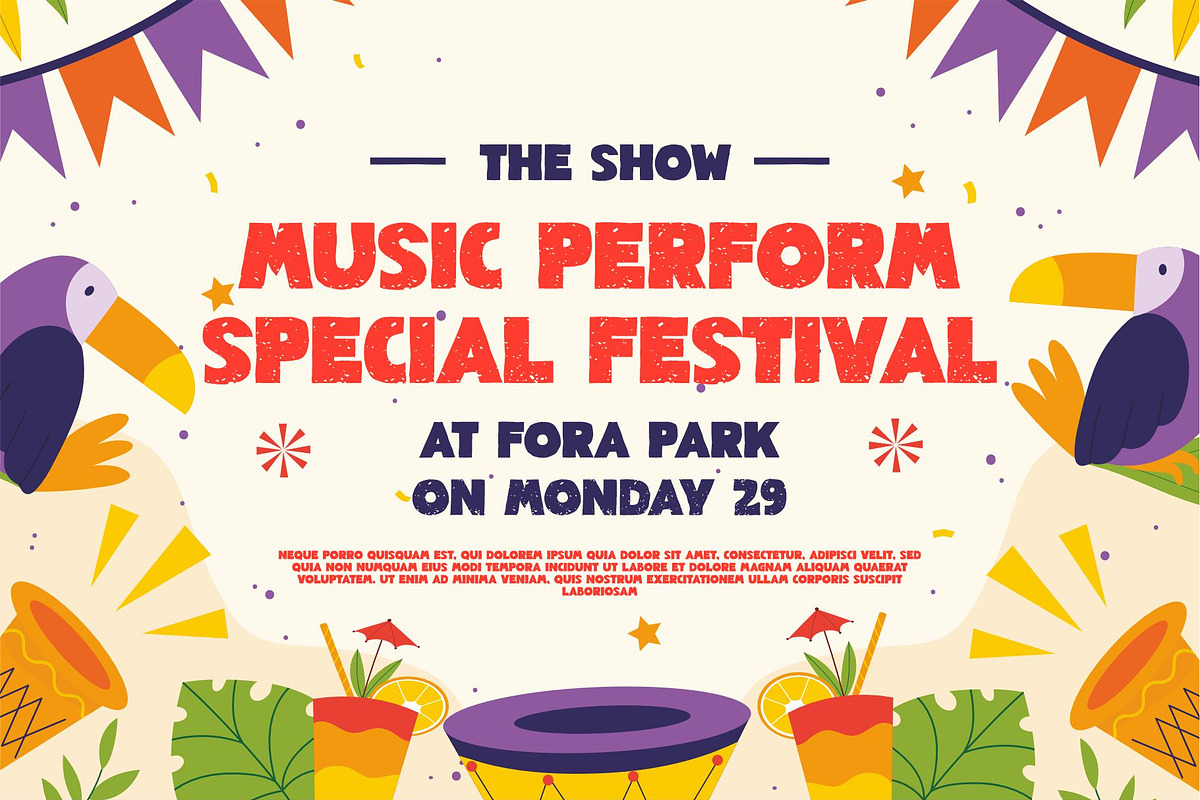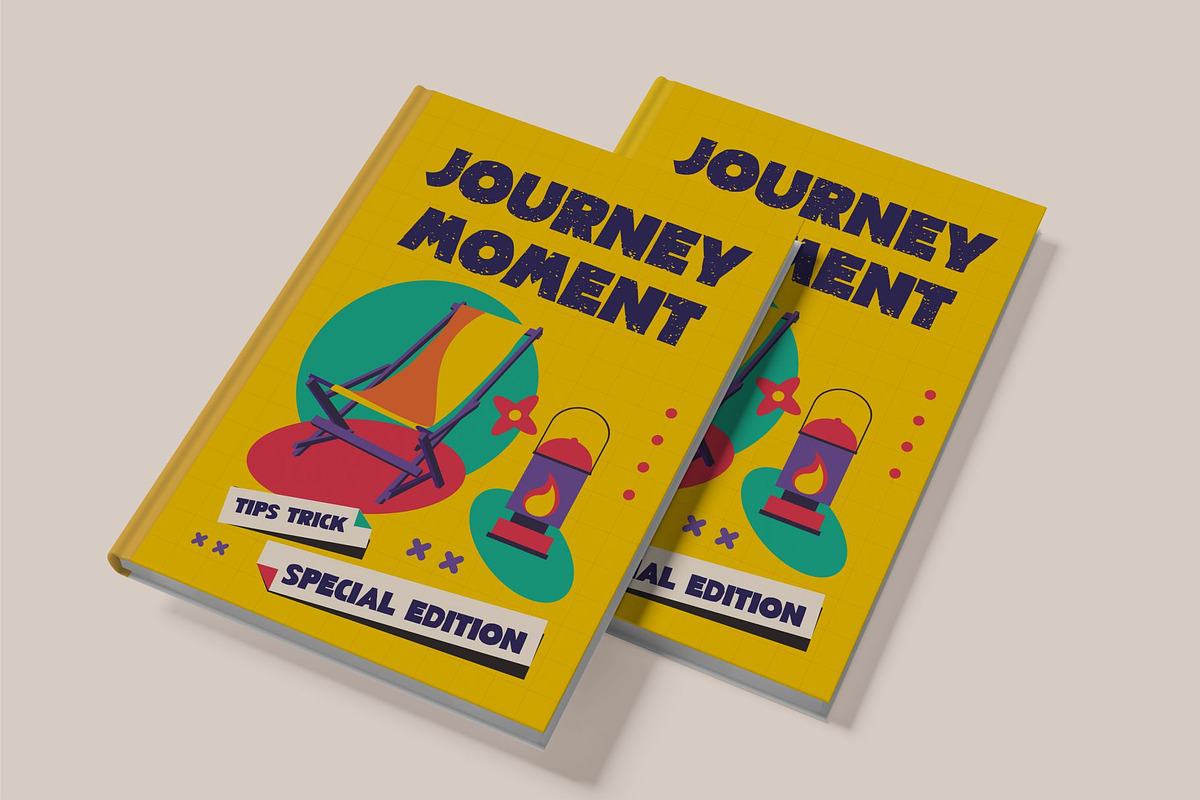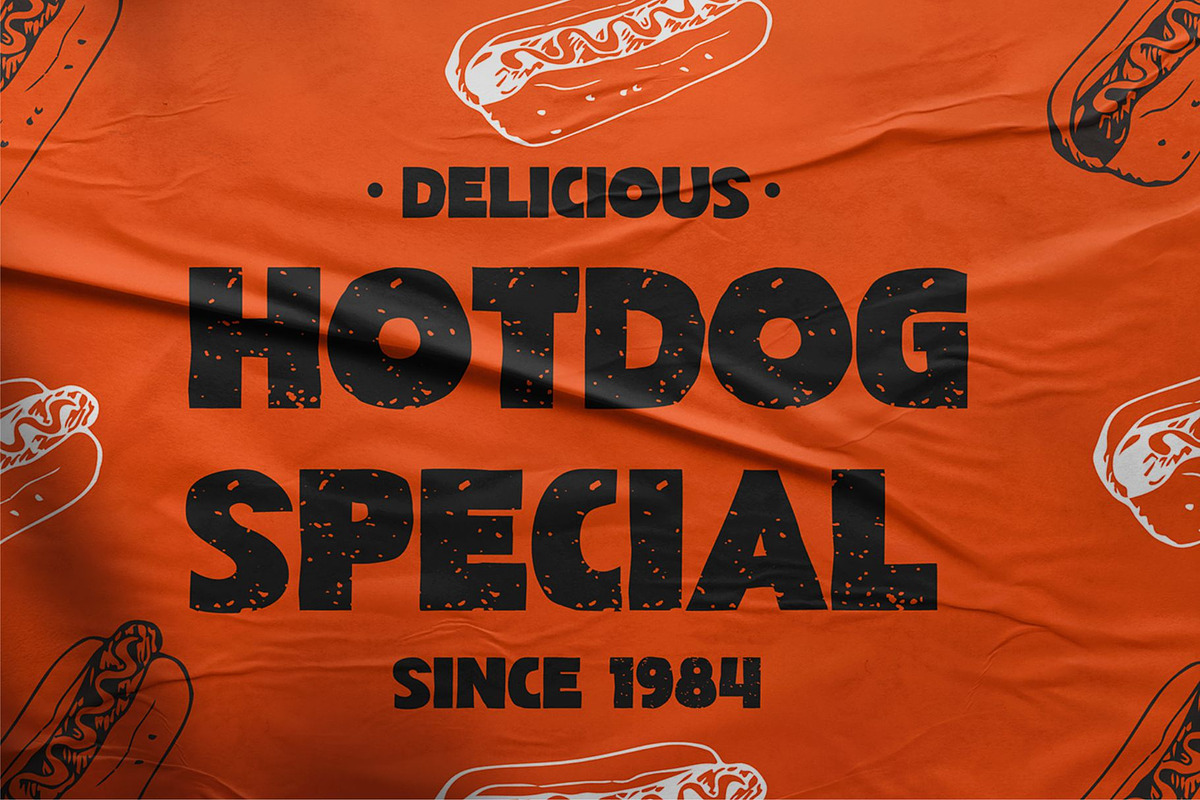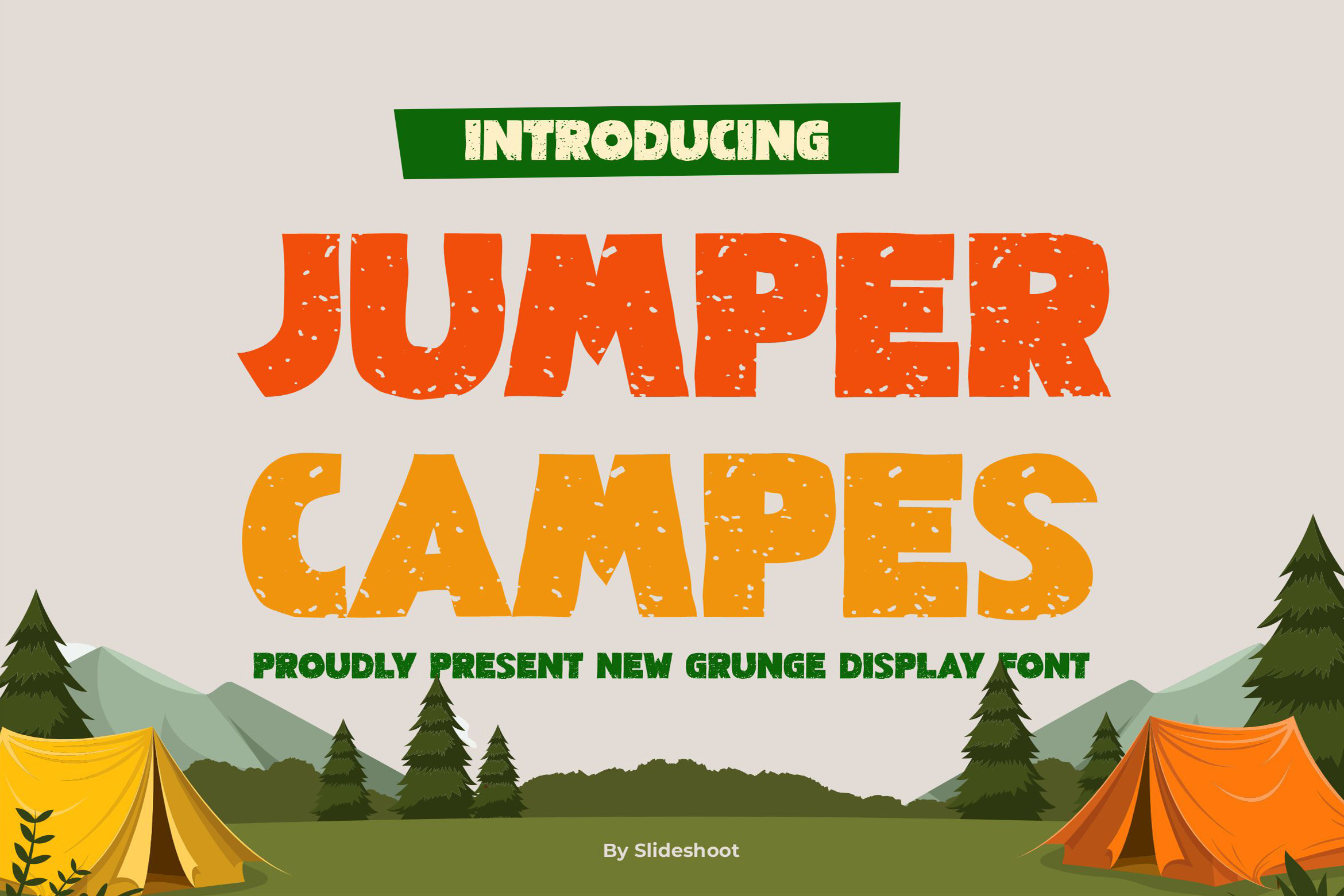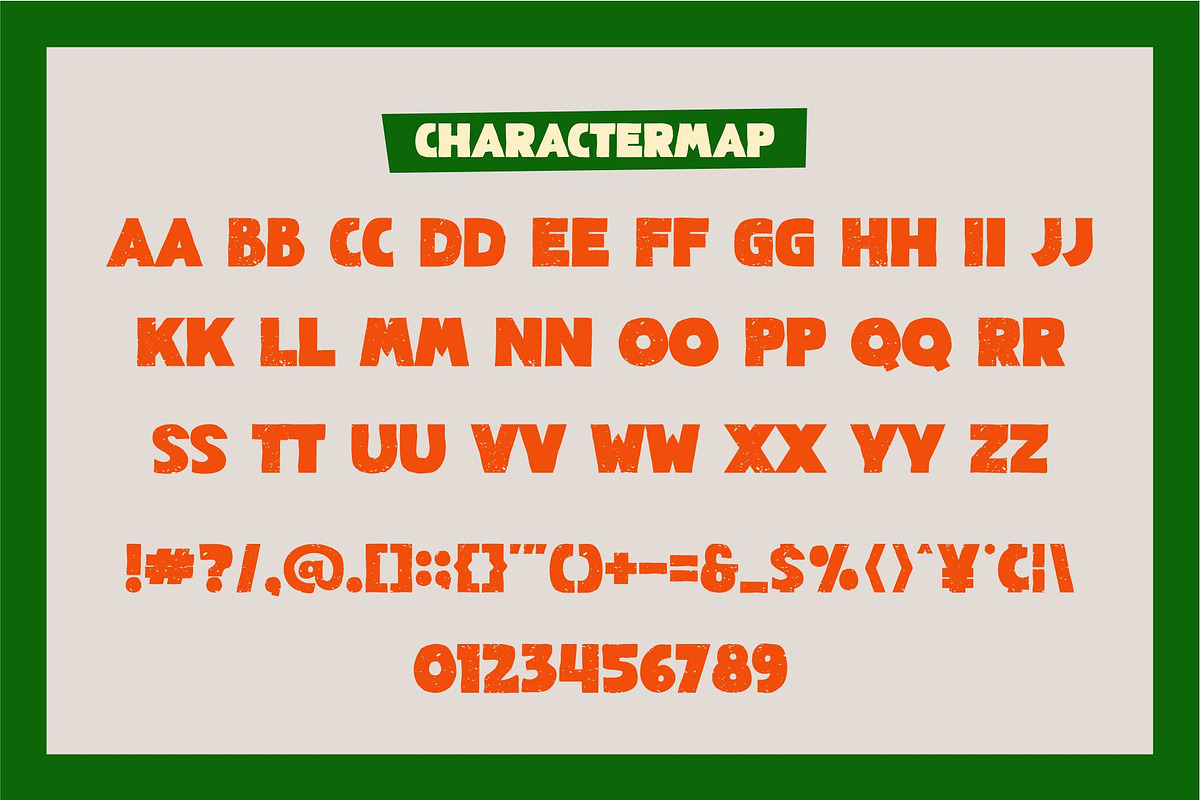
Jumper Campes || Display Font
Introducing Jumper Campes Bold Unique Display Font is a modern, trendy, bouncy and cute display font. It has a unique character with wood theme. It is perfect to be combined with invitation card designs, company logos, movie titles, movie names, business cards, book titles, brand names and various other designs.